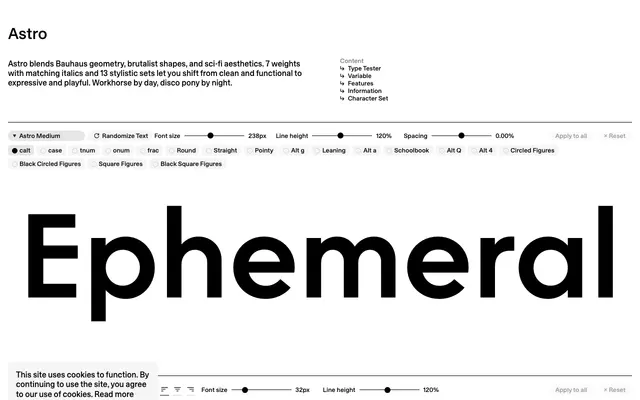
Astro
A geometric sans by Kristian Thorsen drawing on Bauhaus construction and sci-fi aesthetics, available in seven weights with matching italics and 13 stylistic sets.
Designed by Kristian Thorsen and launched in 2025, the family runs from Thin to Black with matching italics and a variable font axis covering the full weight range. Thirteen stylistic sets allow significant shifts in character — from rounded, clean forms through straight-cut and pointy variants to alternative lowercase letters and circled or squared figure styles. The breadth of OpenType options makes it suited to both functional text settings and more expressive display work.
The foundry classifies it as Geometric; the design draws on Bauhaus geometry and modular construction, with circular forms and a rational structure characteristic of geometric sans-serifs.